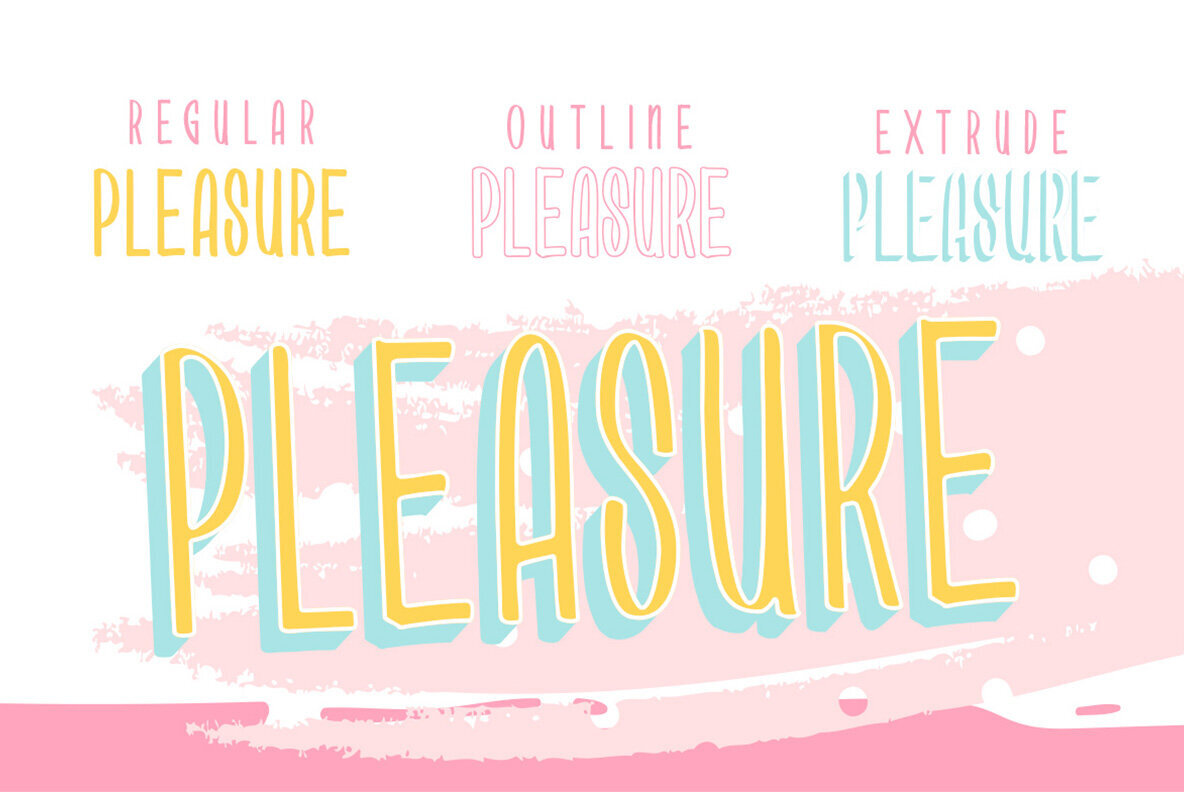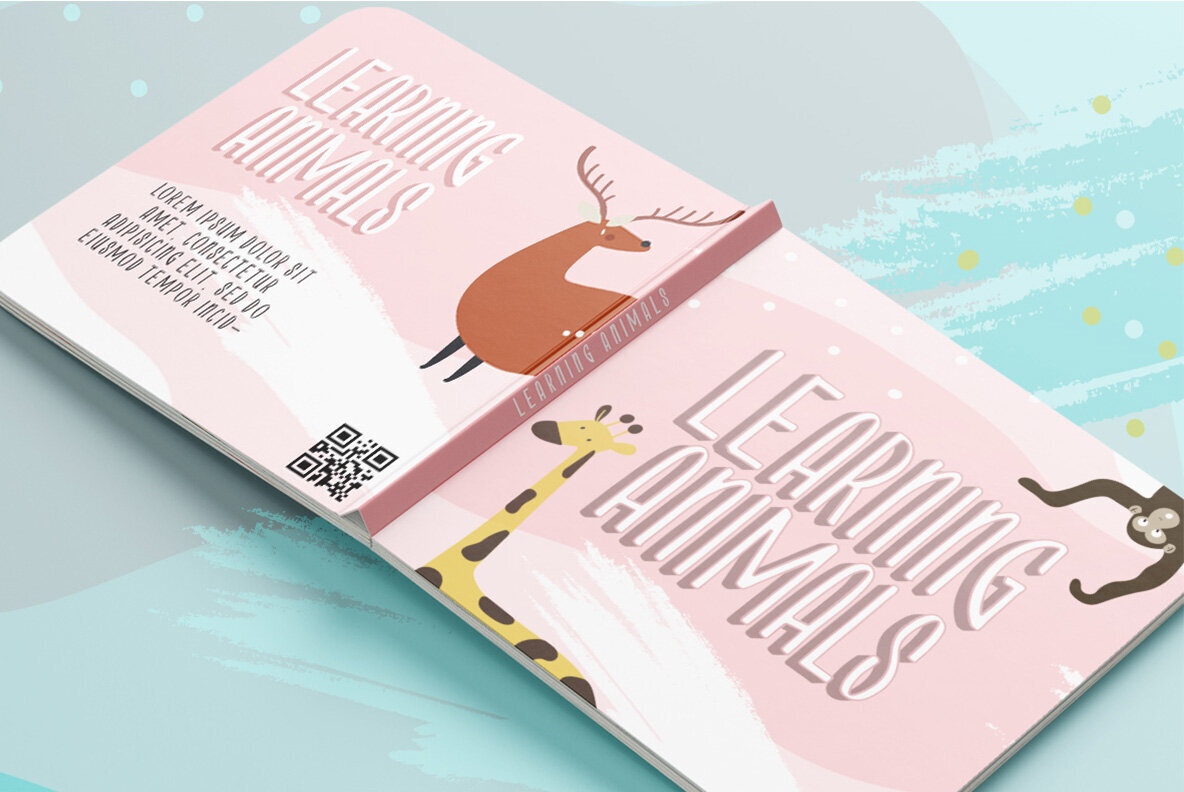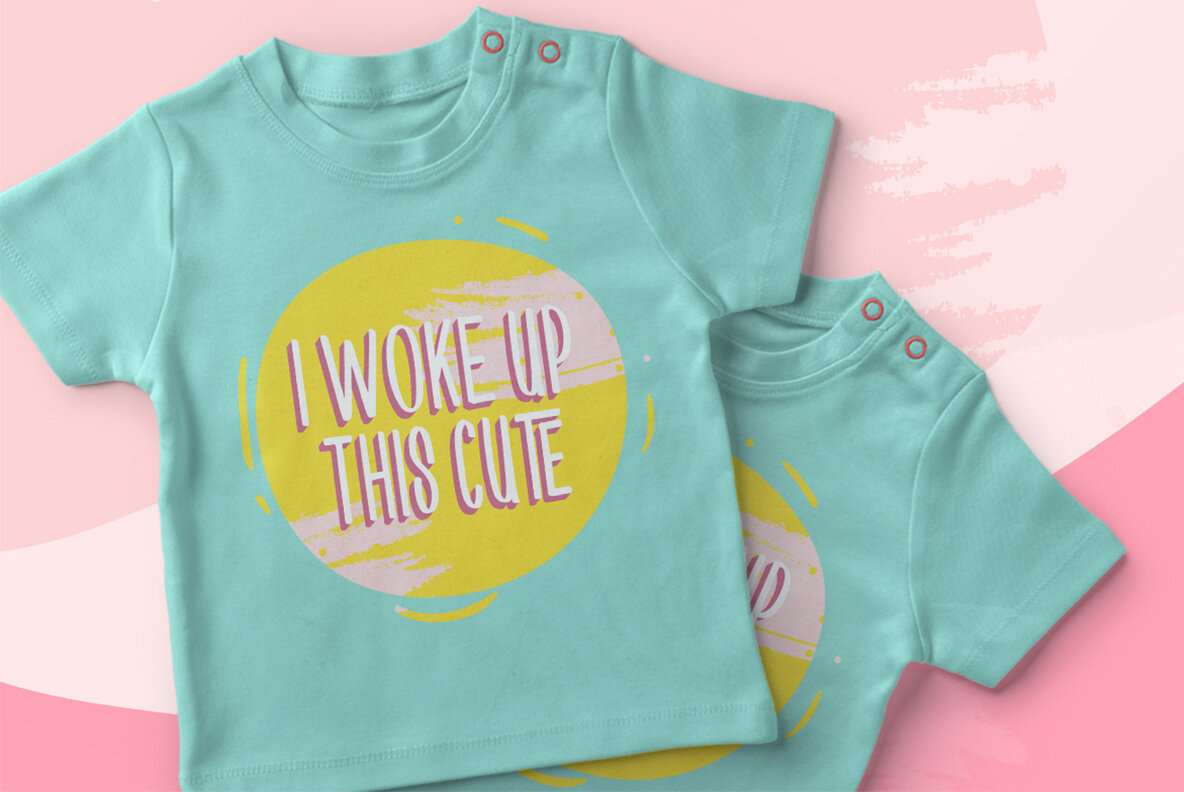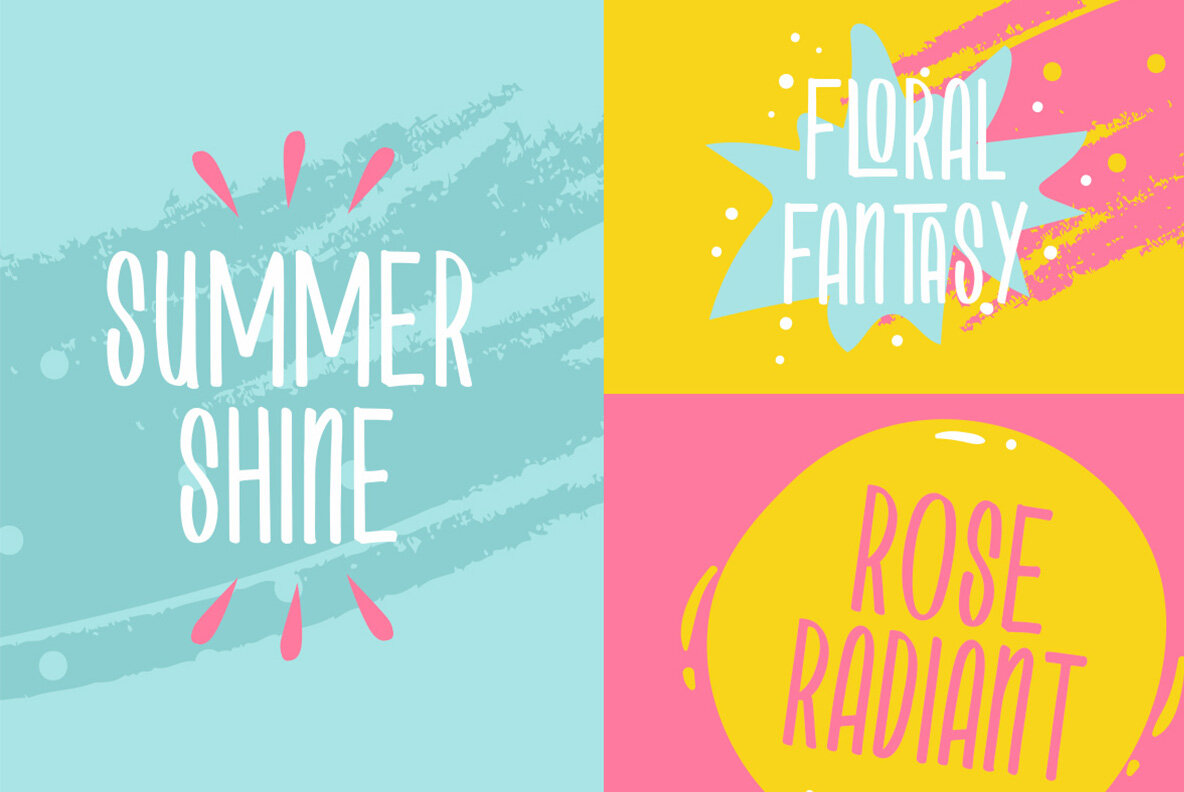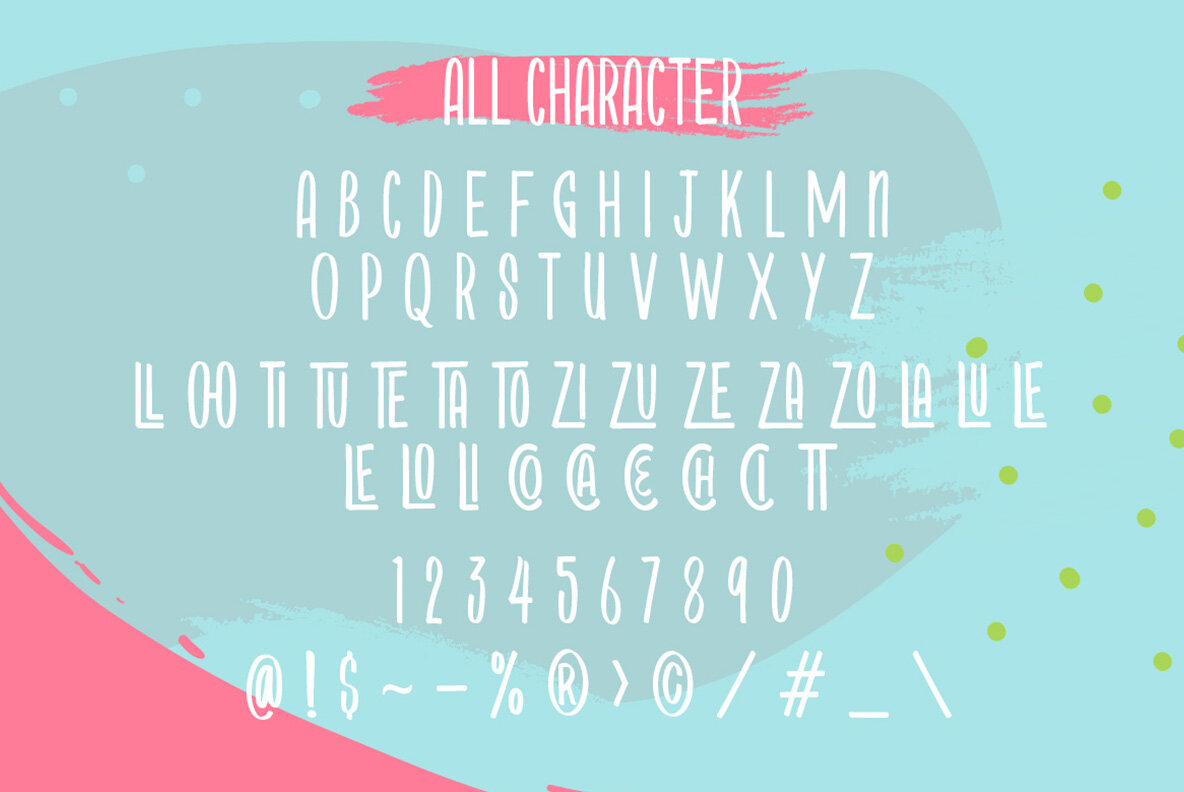
Starblock Font
Starblock is a charming addition to any designer's toolkit. This playful display font is crafted especially for logos, but its versatility extends to a variety of formal applications including invitations, labels, magazines, and more. From greeting cards to packaging, Starblock adapts effortlessly, adding a whimsical touch to each project. We recommend using design software that supports OpenType features and Glyphs panels, such as Adobe applications and Corel Draw, to fully explore the potential of Starblock.Starblock: A Playful Display Typeface